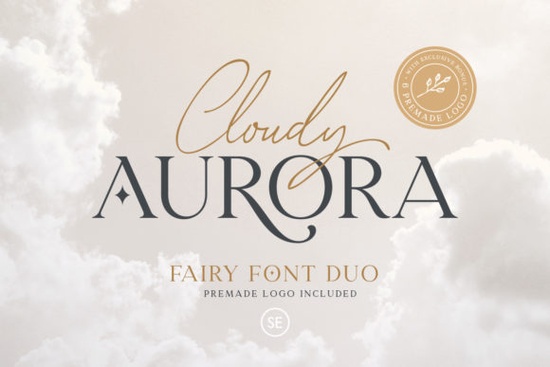
If you're looking for a font that works just as well on a handmade greeting card as it does on a boutique clothing tag or a wedding invitation, Cloudy Aurora Font is worth your attention. It’s a thoughtful duo serif and script that pair naturally without needing extra kerning tweaks or layout gymnastics. You don’t need design experience to use it well, but if you do have an eye for detail, you’ll appreciate how the contrast between the crisp serif and the soft, flowing script adds quiet sophistication not flashiness to your work.
When does Cloudy Aurora fit best?
This font shines in projects where warmth and clarity matter more than loud personality. Think: small-batch soap labels, minimalist baby shower invites, seasonal shop banners, or even subtle embroidery digitizing (when converted to outlines). It’s not overly decorative, so it scales down cleanly for business cards or social media graphics and holds up beautifully when printed on textured paper or fabric.
The serif version has gentle stroke variation and open letterforms, making it highly legible at smaller sizes. The script isn’t overly connected or cursive-heavy, so it reads easily even in short phrases like “Hand-poured” or “Est. 2022.” That balance is rare and useful.
How does it compare to other popular serif + script duos?
Like Afterglow Font, Cloudy Aurora offers a cohesive pairing, but with softer edges and less contrast between thick and thin strokes giving it a gentler, more approachable feel. If you’ve used Astrid Font, you’ll notice Cloudy Aurora has more rhythm in its script and slightly wider letter spacing in the serif, which helps with readability in tight layouts.
Compared to Mosca Laroke Font, Cloudy Aurora leans more neutral less vintage, less ornate so it adapts better to modern brands or clean aesthetic niches. And unlike Bride Font, which leans heavily into romantic elegance, Cloudy Aurora keeps things grounded enough for everyday branding, like a local café menu or a pottery studio’s packaging.
Real uses from real creators
- A print-on-demand seller used the serif for product titles on Etsy thumbnails and the script for short taglines (“Made with care”, “Small batch”) resulting in clearer visuals and higher click-through rates.
- A stationery maker paired Cloudy Aurora with muted watercolor backgrounds for baby announcements; clients consistently commented on how “calm” and “thoughtful” the typography felt.
- A small candle brand applied the script to jar labels (as cut vinyl) and the serif for ingredient lists both held up well during heat-press application and hand-washing tests.
One thing users mention often: it doesn’t compete with photos or illustrations. Whether you’re layering text over a photo background or placing it beside hand-drawn elements, Cloudy Aurora stays supportive not dominant.
For context, it sits comfortably alongside other versatile serif + script combinations like Afterglow Font, Astrid Font, and Mosca Laroke Font. Each has its own voice but Cloudy Aurora stands out for how quietly capable it is across contexts.